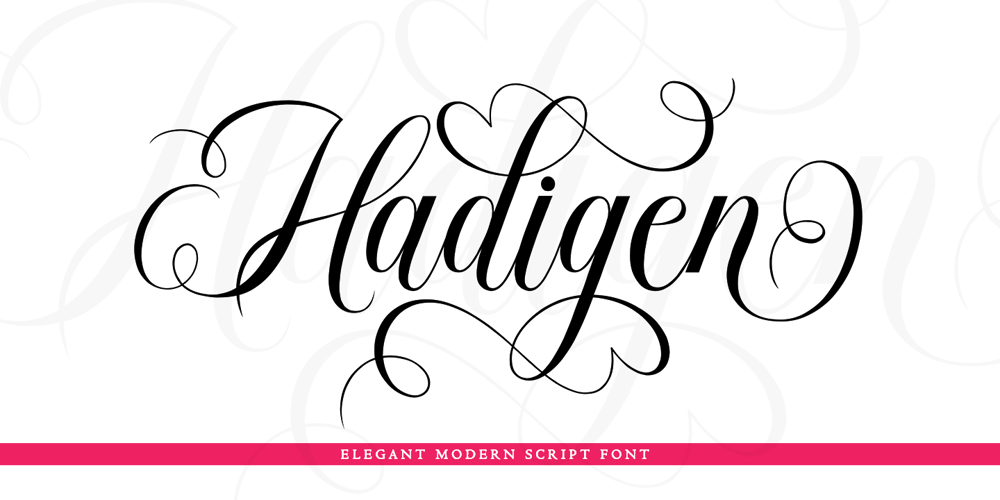
Hadigen Font Family was designed by Muhammad Nazar and published by Bungletter. Hadigen contains 3 styles and family package options. Hadigen is a very Beautiful, elegant and unique handwritten font. Expertly designed to be a true favourite, this font has the potential to take your creative ideas to the highest level!This font is PUA encoded which means you can access all the glyphs and sweeps easily!Hadigen is attractive because it is sleek, clean, feminine, sensual, glamorous, simple and very easy to read, thanks to its many luxurious letter connections. I also offer a decent number of style alternatives for all letters. Classic style is very suitable to be applied in various formal forms such as invitations, labels, restaurant menus, logos, fashion, make up, stationery, novels, magazines, books, greeting/wedding cards, packaging, labels or all kinds of advertisements. for your purposes. . . . . . .Thanks & Congratulations on the Design.